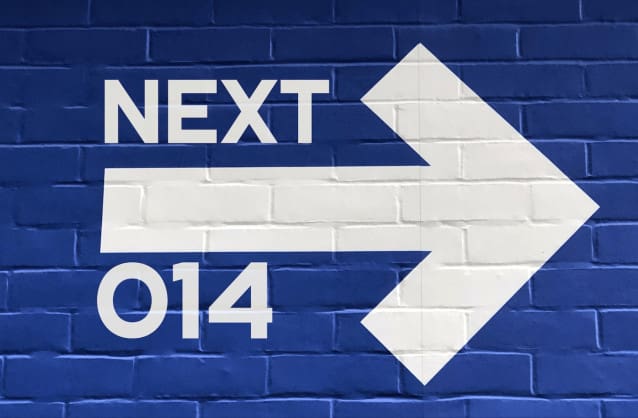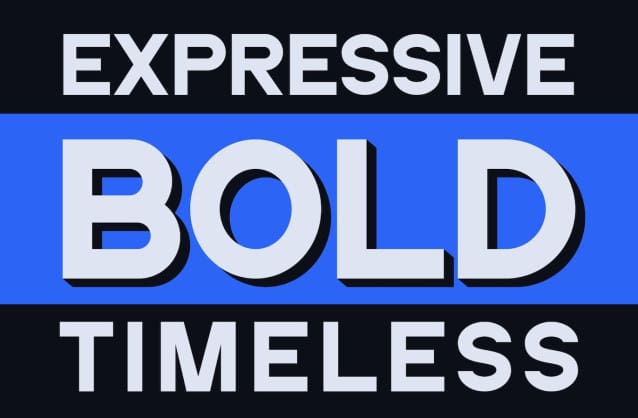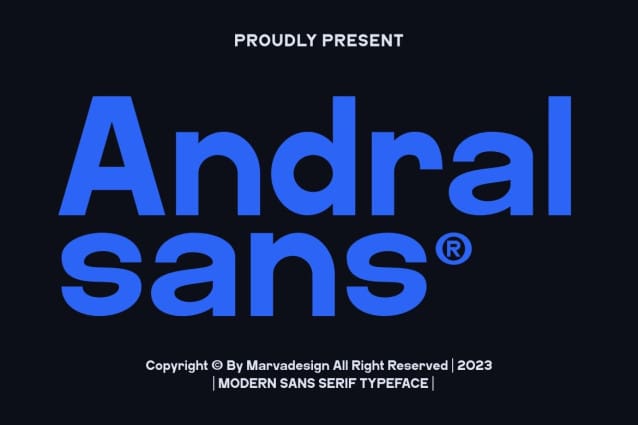
Andral Sans Font
Andral Sans Font – Modern Font is a bold and authentic display font. The font is suitable for any branding project like logo, Template Design, Product and many more. outstanding in a wide range of contexts.